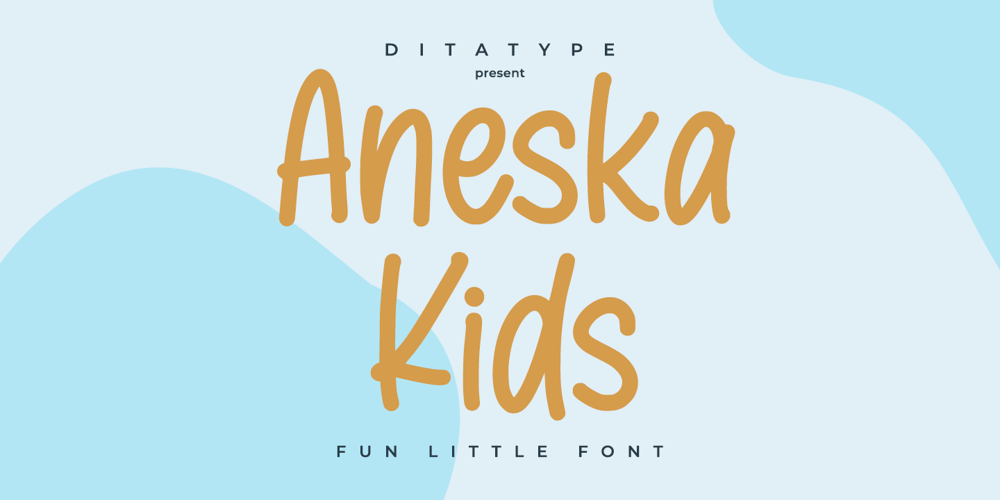
Aneska Kids
Aneska Kids font
Aneska Kids Font Family was designed by Donis Miftahudin and published by Ditatype. Aneska Kids contains 1 styles and family package options. Aneska Kids is a display font. Made with a playful style, it brings a fun and chic typeface. Chalk Brush is best used for card, branding, logotype, and quotes.Features: – PUA Encoded – Multilingual Support – Numerals and Punctuation